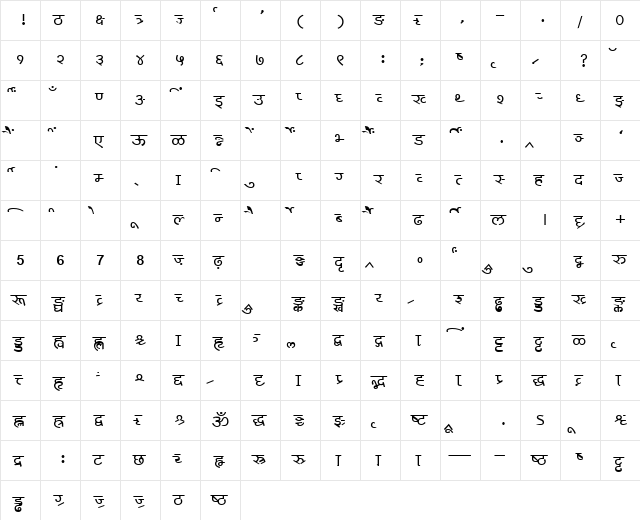
AkrutiDevRekha Normal
Design Context for AkrutiDevRekha Typeface
AkrutiDevRekha takes a measured approach to typography — its balanced proportions and neutral character make it a reliable workhorse for both digital and print work.